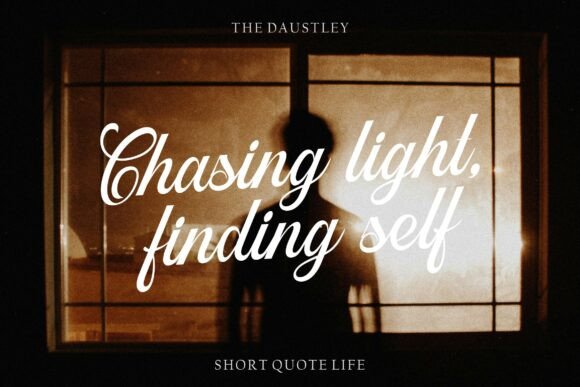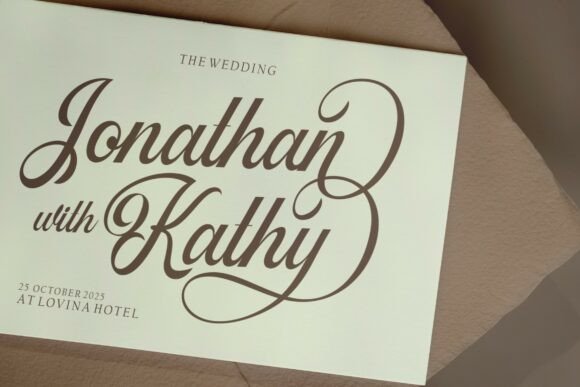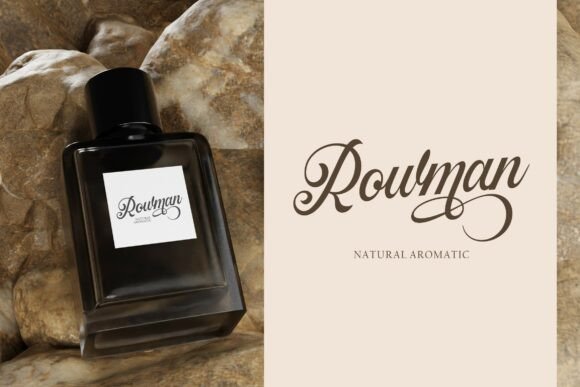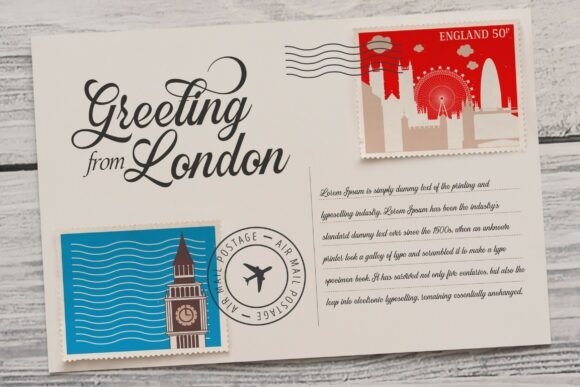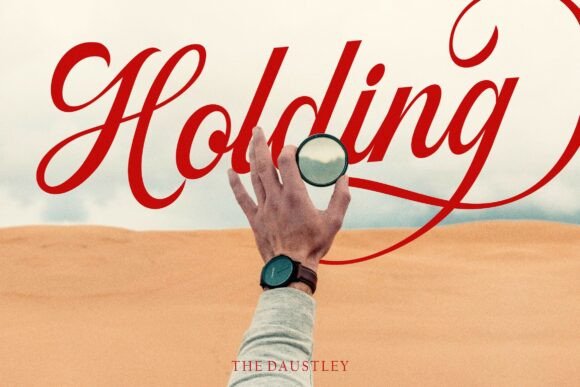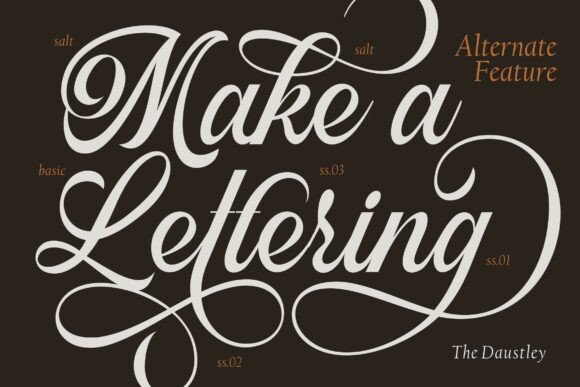
Introducing Daustley Font: Elevate Your Designs with Elegant Modern Calligraphy
In the world of typography, a good font can make all the difference in the success of a design project. For designers and crafters looking to add a touch of sophistication and elegance to their work, Daustley Font is an excellent choice. This modern calligraphy font is designed to bring charm and refinement to a wide range of projects, from wedding invitations and branding to social media posts and logos.
The Characteristics of Daustley Font
Daustley Font is a beautifully crafted modern calligraphy font that boasts smooth, flowing strokes and stylish letterforms. Its elegant appearance makes it perfect for projects that require a high level of sophistication and creativity. The font’s flowing lines and curves give it a dynamic and artistic feel, allowing designers to create stunning visual content that captures the attention of their audience.
Key Features of Daustley Font
- Smooth and Flowing Strokes: Daustley Font features smooth, flowing strokes that give it a natural and elegant look.
- Stylish Letterforms: The font’s stylish letterforms add a touch of sophistication and refinement to any design.
- Alternate Characters: Daustley Font comes with alternate characters, giving designers the freedom to create unique and personalized typography combinations.
Uses of Daustley Font
Daustley Font is a versatile font that can be used in a variety of design projects, including:
- Wedding Invitations: Add a touch of elegance and sophistication to your wedding invitations with Daustley Font.
- Branding: Use Daustley Font to create a refined and professional brand identity.
- Logos: Create a stunning logo that showcases your brand’s personality with Daustley Font.
- Social Media Posts: Elevate your social media posts with Daustley Font’s elegant and modern calligraphy.
Benefits of Using Daustley Font
Using Daustley Font in your design projects offers several benefits, including:
- Elegance and Sophistication: Daustley Font adds a touch of elegance and sophistication to any design.
- Creativity and Flexibility: The font’s alternate characters give designers the freedom to create unique and personalized typography combinations.
- Time-Saving: Daustley Font is easy to use and saves designers time and effort in creating high-quality typography.
Tips for Using Daustley Font
To get the most out of Daustley Font, here are some tips to keep in mind:
- Use it Sparingly: Use Daustley Font sparingly to add emphasis and create visual interest in your designs.
- Experiment with Alternate Characters: Take advantage of Daustley Font’s alternate characters to create unique and personalized typography combinations.
- Pair it with Other Fonts: Pair Daustley Font with other fonts to create a visually appealing contrast and add depth to your designs.
Daustley Font is a beautiful modern calligraphy font that brings elegance and charm to any design project. With its smooth, flowing strokes and stylish letterforms, it’s perfect for projects that require a touch of sophistication and creativity. The font’s alternate characters give designers the freedom to create unique and personalized typography combinations, making it ideal for wedding invitations, branding, logos, social media posts, and any design that calls for graceful handwritten beauty.